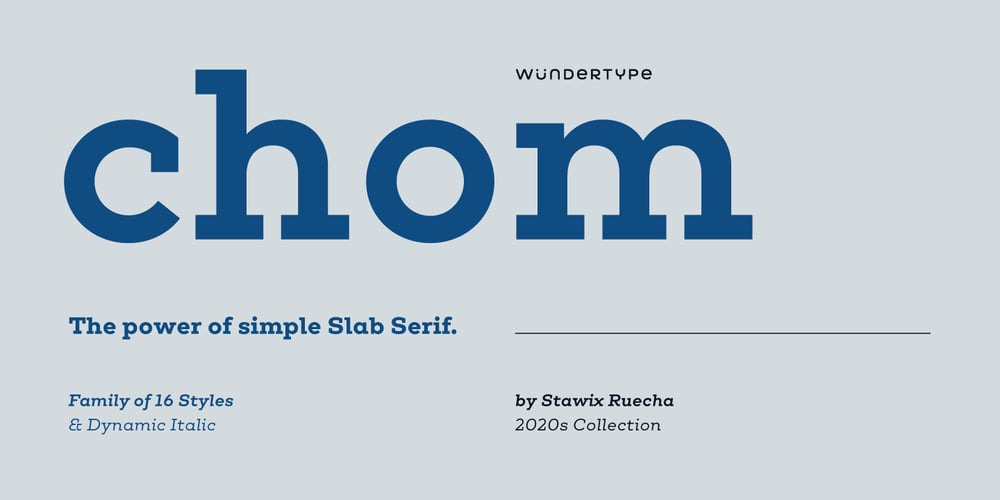
Chom Font Family was designed by Stawix Ruecha and published by Wundertype. Chom contains 16 styles and family package options. Chom is a Geometric Slab-Serif redefined to be up-to-date and easy to use in every manner, an essence of minimalism at its best. With the light texture of Chom makes it eye-pleasing to read as a large body of text but also claims its space when use as headlines.Chom comes in 8 weights each equipped with Italics and the classic redesigned Old Styles Numerals. Supported many OpenType features including tabular numerals, inferiors & superiors, numerators & denominators, fractions, ligatures and many more.